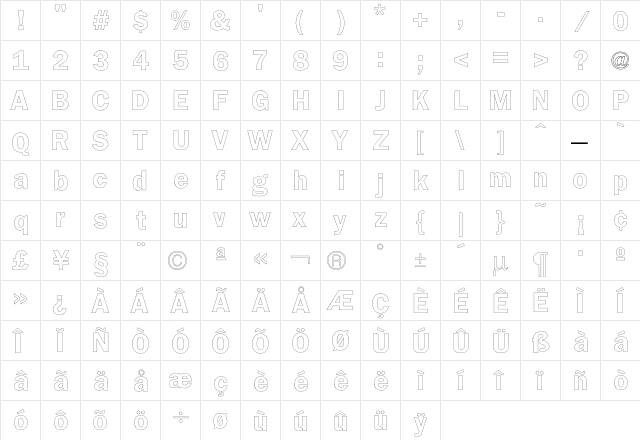
Franklin Outline Font Preview
Franklin Outline
Franklin Outline Font Details
| Style | Outline |
Design Context for Franklin Typeface
Franklin is built around its visual character rather than neutral utility — its distinctive forms are designed to make an impression at display sizes.
Font Pairing: Pair with a clean neutral sans-serif for body copy to let Franklin's character lead without overwhelming the composition.
Pro Tip: Treat Franklin as the centrepiece of your typographic hierarchy. One strong heading set in a decorative face can carry an entire layout.